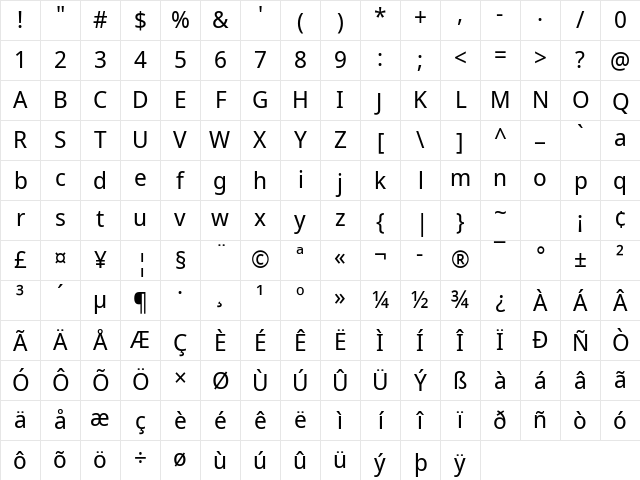
Noto Sans Disp Regular
Foundry: Monotype Imaging Inc.
Designer: Monotype Design Team
Noto Sans Disp Family
Design Context for Noto Sans Disp
Noto Sans Disp is a composed and adaptable typeface that performs quietly and consistently across a wide range of design contexts.
Pro Tip: Use Noto Sans Disp in both headline and body roles to test its range before committing to a single application.